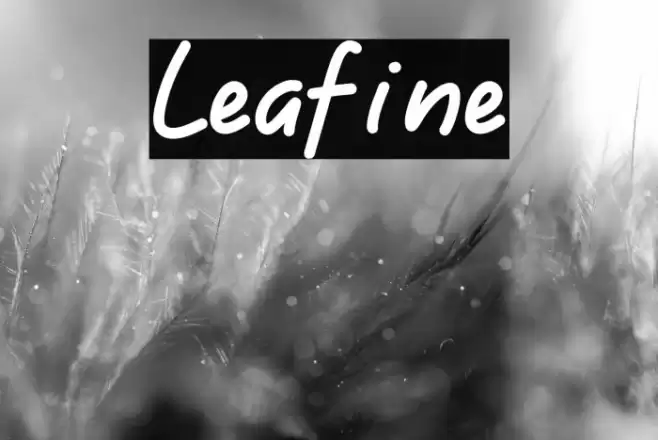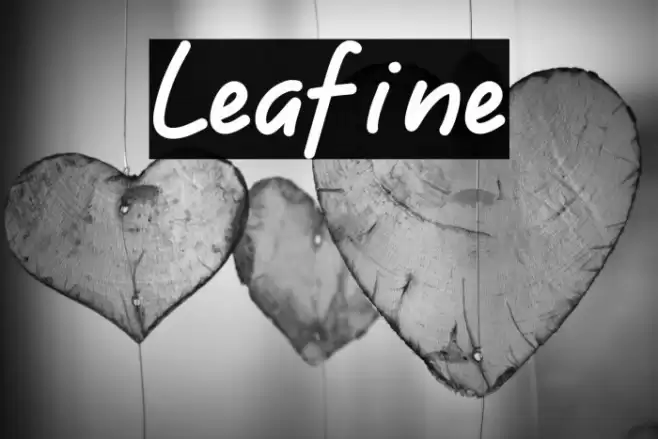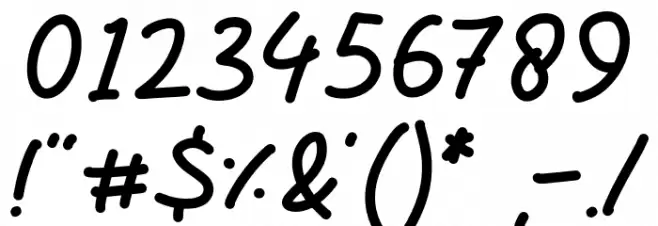
Leafine Font
Leafine Description
This font exhibits a casual and friendly handwritten style, characterized by its smooth, flowing curves and slightly slanted letters. The uppercase letters maintain a consistent height, while the lowercase letters have a playful, informal appearance. The numerals are rounded and easy to read, complementing the overall relaxed aesthetic. Special characters are well-integrated, maintaining the font's cohesive look. The strokes are uniform in thickness, providing a balanced and approachable feel. This font is versatile, suitable for projects that require a personal touch or a more humanistic approach.
A casual, handwritten font with smooth curves and a friendly appearance from Uncategorized fonts.
- Proposed Projects: Ideal for greeting cards, personal branding, social media graphics, and informal invitations.
- Overall Style: Casual
- Use Case: Logos, Headlines, Informal Text